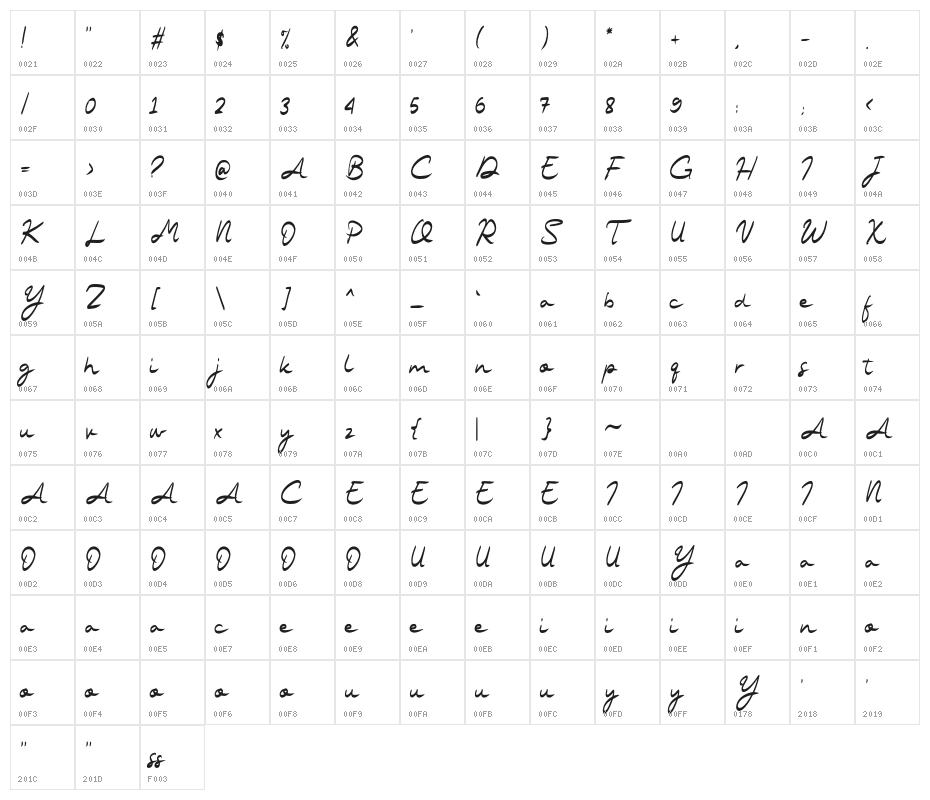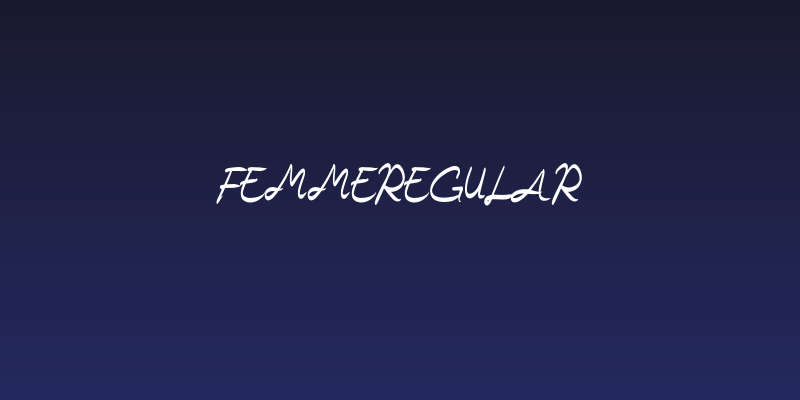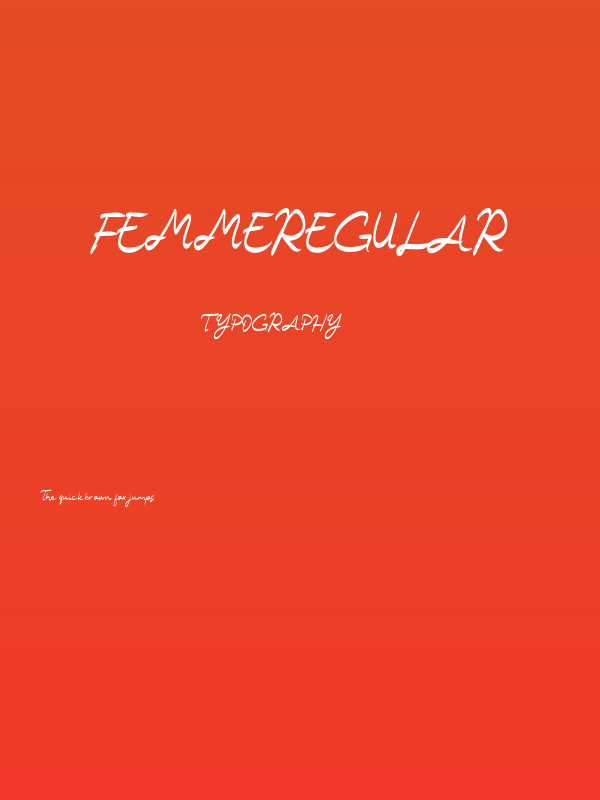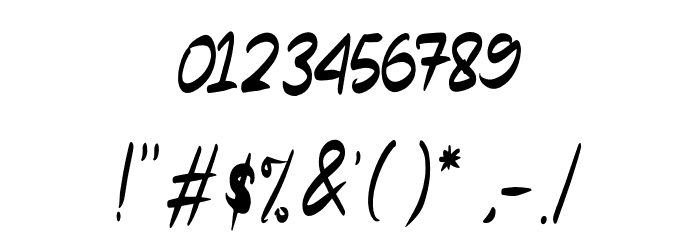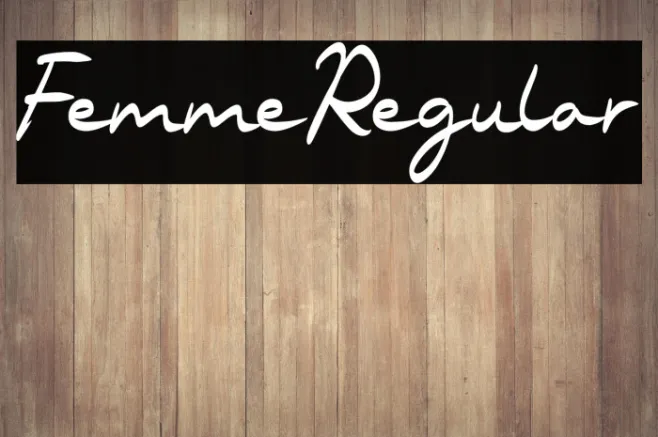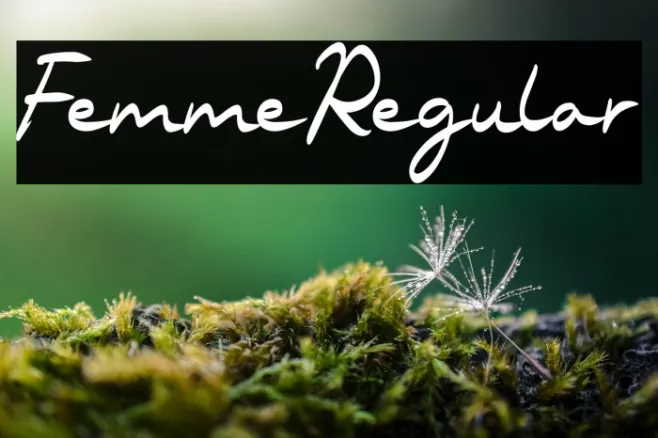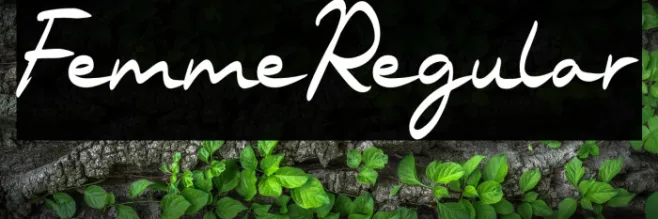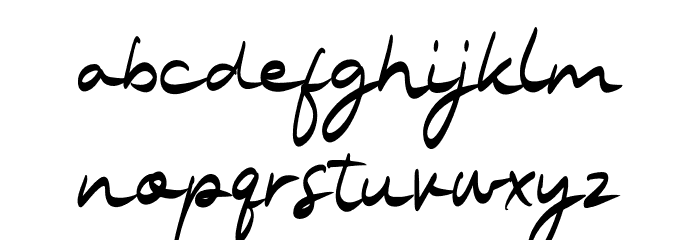
FemmeRegular Font
FemmeRegular Description
This font exudes a stylish and elegant script style, characterized by its fluid, cursive strokes that mimic natural handwriting. The uppercase letters are bold and slightly slanted, adding a dynamic and sophisticated flair. The lowercase letters maintain a consistent flow, with smooth connections between characters, enhancing readability while preserving an artistic touch. The numerals and special characters are crafted with the same attention to detail, ensuring a cohesive look across all glyphs. This font's overall appearance is both modern and timeless, making it versatile for various design applications.